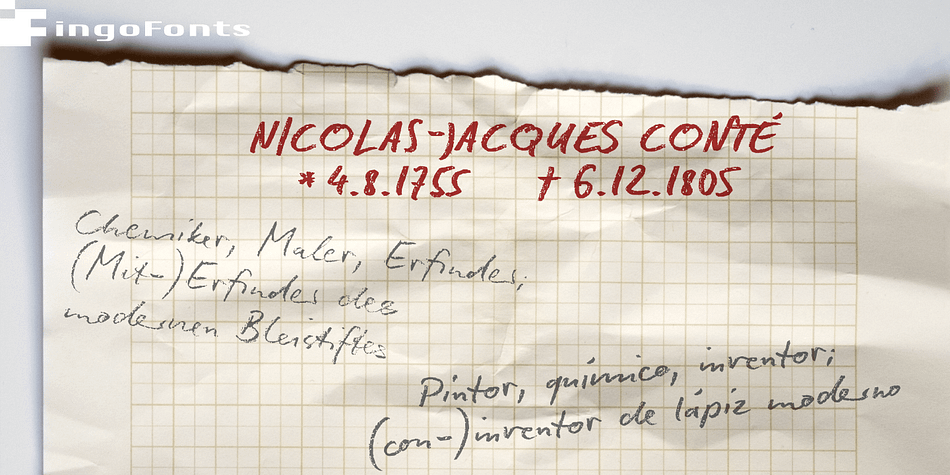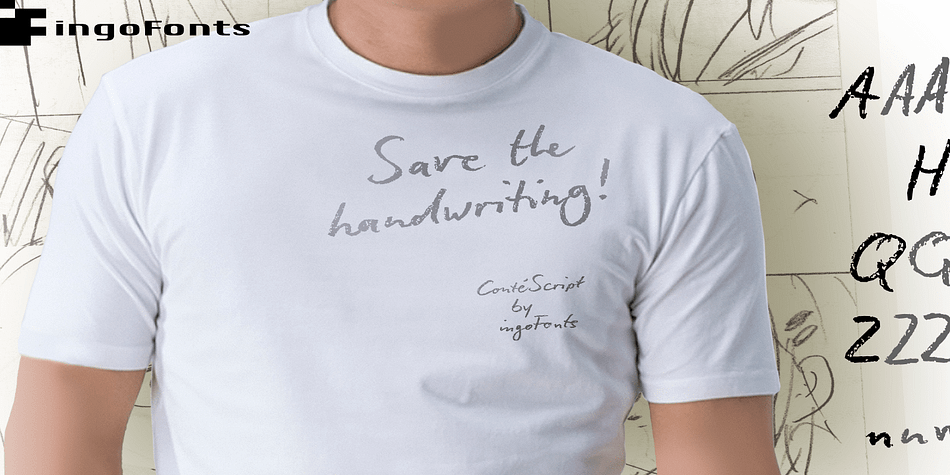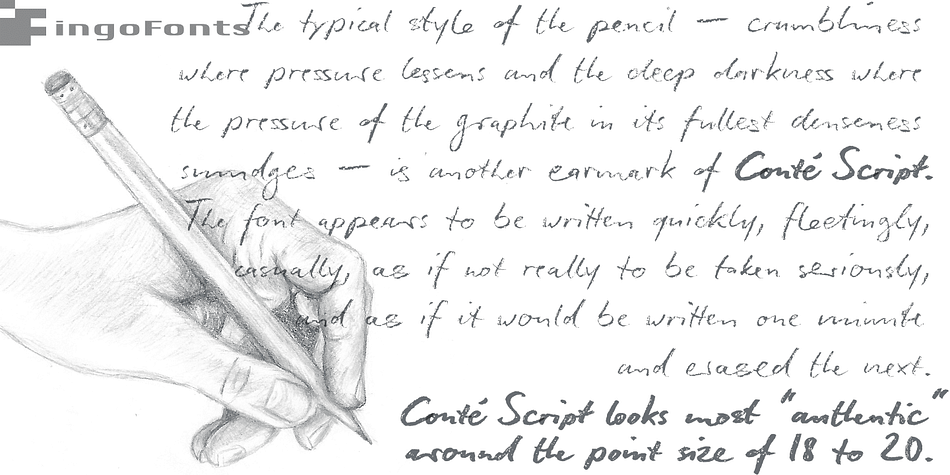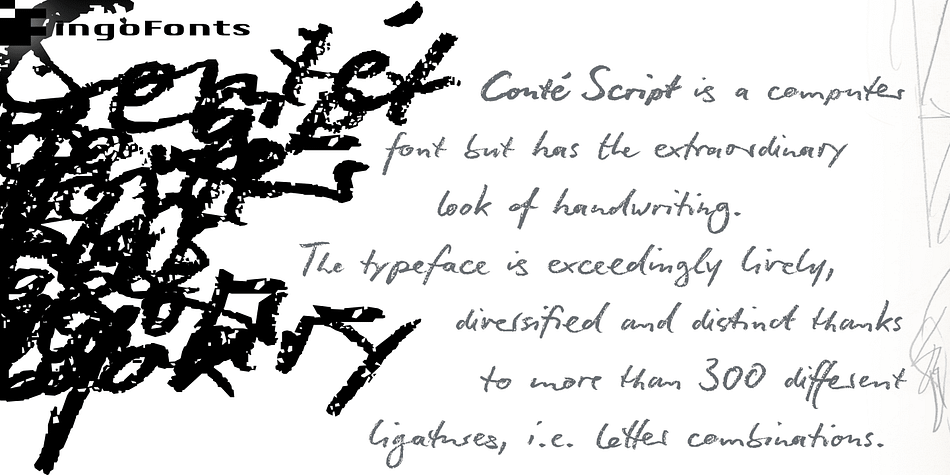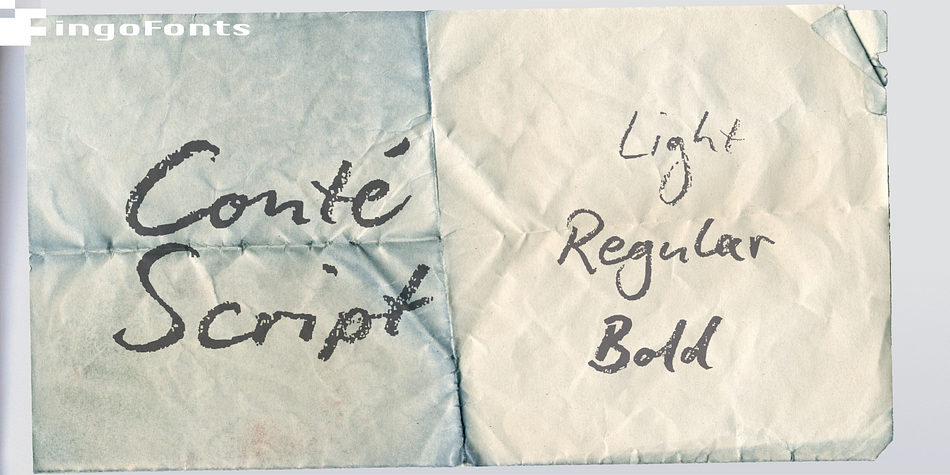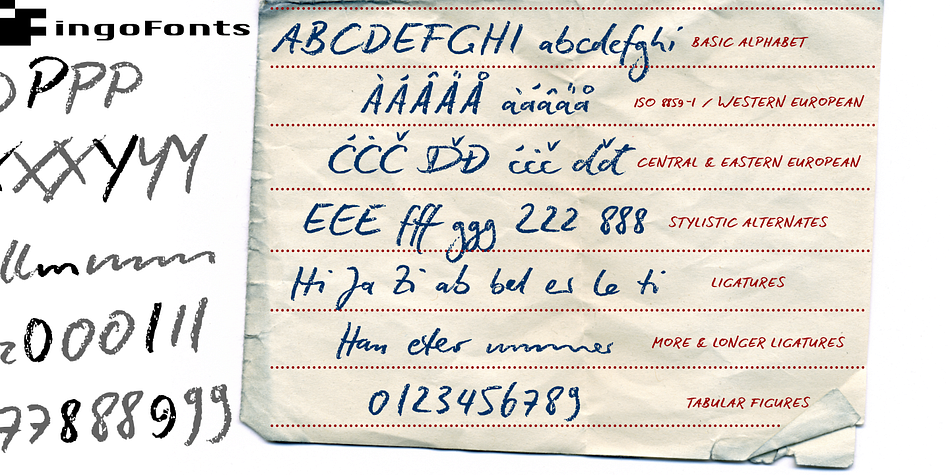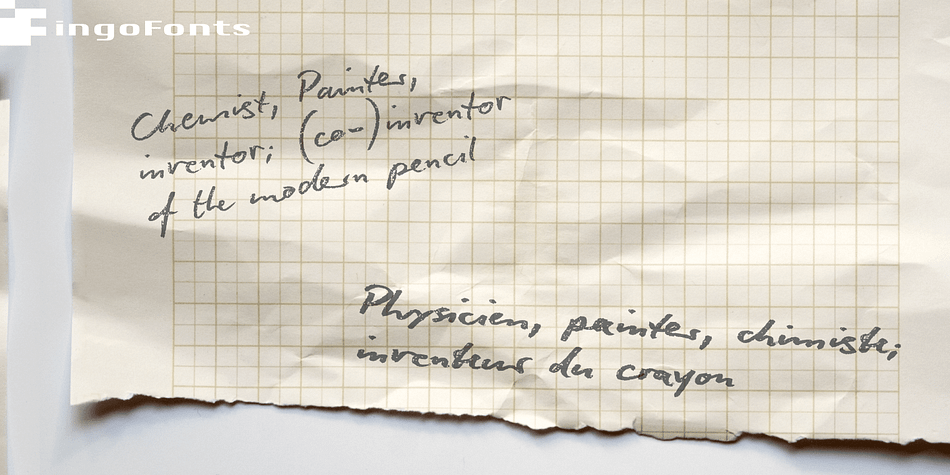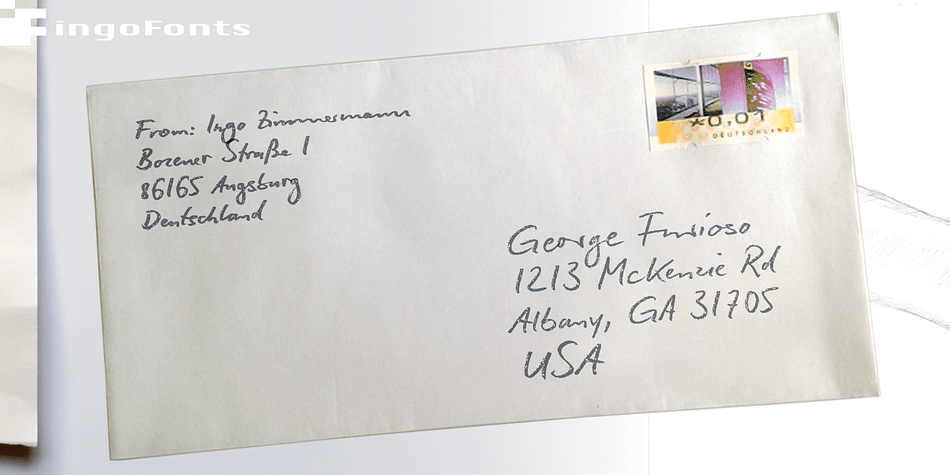
Designed by Ingo Zimmerman, Conté Script Plus is a hand drawn font family. This typeface has three styles and was published by ingoFonts.
Handwriting done in pencil
Conté Script is a computer font but has the extraordinary look of handwriting. The model for Conté Script is my personal everyday handwriting written on normal paper using an extra soft-lead pencil.
This font is obviously not another ”Calligraphy font.“ This typeface is exceedingly lively, diversified and distinct thanks to more than 300 different ligatures, i.e. letter combinations.
The typical style of the pencil – crumbliness where pressure lessens and the deep darkness where the pressure of the graphite in its fullest denseness smudges – is another earmark of Conté Script. The font appears to be written quickly, fleetingly, casually, as if not really to be taken seriously, and as if it would be written one minute and erased the next.
Conté Script looks most ”authentic“ around the point size of 18 to 20.